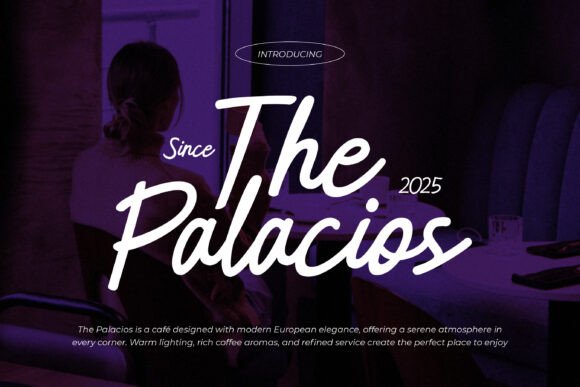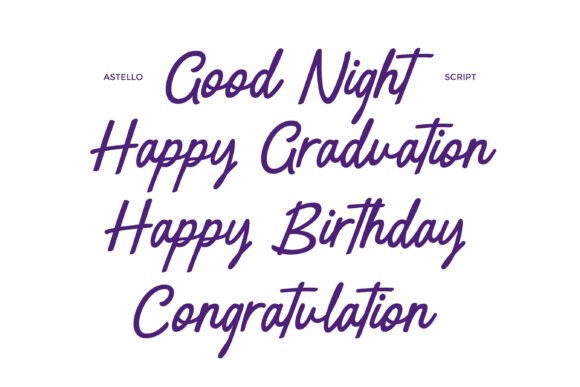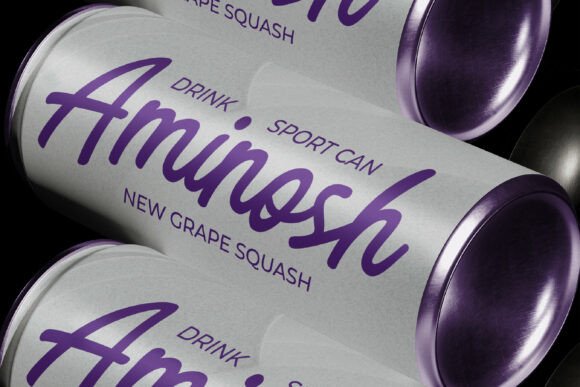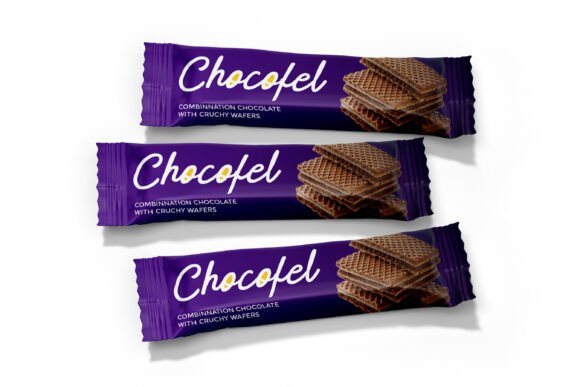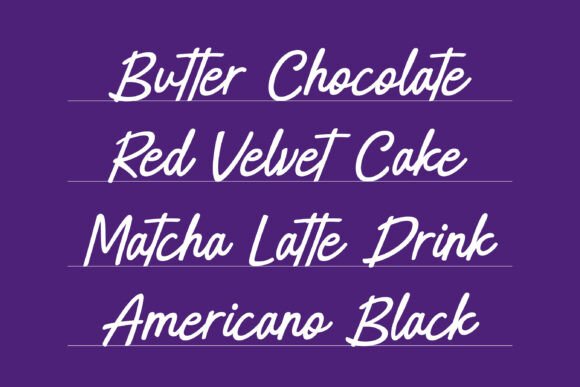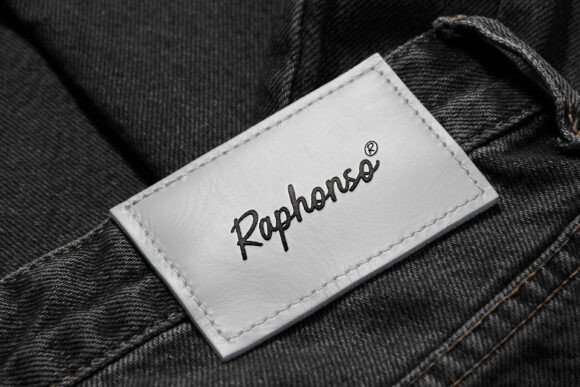
Introducing Astello Font: The Perfect Blend of Personality and Professionalism
In the world of typography, a font can make or break a design. It can convey the tone, personality, and style of a brand or project. For designers and crafters looking for a font that exudes a sense of friendliness, modernity, and professionalism, Astello Font is an excellent choice. In this article, we’ll dive into the features and benefits of Astello, a natural handwritten font with a clean monoline script style.
Astello’s Unique Characteristics
Astello is a carefully crafted font that boasts a clean monoline script style, making it perfect for a wide range of design applications. Its unique characteristics include:
- Natural Handwritten Feel: Astello’s handwritten style gives it a personal touch, making it ideal for designs that require a human and approachable feel.
- Clean Monoline Script: The font’s clean and smooth lines ensure that it remains legible and easy to read, even at smaller font sizes.
- Flowing Strokes: Astello’s flowing strokes and balanced letterforms create a sense of harmony and fluidity, making it a joy to read and look at.
- Handcrafted Character: Despite its clean and modern style, Astello still retains a handcrafted character that sets it apart from more generic fonts.
The Benefits of Using Astello Font
So, why should designers and crafters choose Astello Font for their projects? Here are just a few benefits:
- Versatility: Astello’s clean and modern style makes it suitable for a wide range of design applications, from branding and advertising to packaging and digital media.
- Readability: The font’s flowing strokes and balanced letterforms ensure that it remains easy to read, even at smaller font sizes.
- Personality: Astello’s handwritten style gives it a unique personality that can help brands and projects stand out from the crowd.
- Professionalism: Despite its friendly and approachable feel, Astello still conveys a sense of professionalism and sophistication.
Design Applications for Astello Font
Astello Font is an incredibly versatile font that can be used in a wide range of design applications, including:
- Branding and Identity: Use Astello to create a unique and memorable brand identity that stands out from the crowd.
- Advertising and Marketing: The font’s clean and modern style makes it perfect for advertising and marketing materials, such as brochures, flyers, and social media graphics.
- Packaging Design: Astello’s friendly and approachable feel makes it an excellent choice for packaging design, particularly for brands that want to convey a sense of warmth and personality.
- Digital Media: The font’s legibility and readability make it suitable for digital media, such as e-books, blogs, and websites.
Tips for Using Astello Font Effectively
To get the most out of Astello Font, here are a few tips:
- Use it as a Headline Font: Astello’s unique personality and style make it perfect for use as a headline font.
- Pair it with Other Fonts: Experiment with pairing Astello with other fonts to create a unique and visually appealing typography scheme.
- Adjust the Font Size: Don’t be afraid to experiment with different font sizes to find the perfect balance between readability and style.
In conclusion, Astello Font is an excellent choice for designers and crafters looking for a font that exudes a sense of friendliness, modernity, and professionalism. Its unique characteristics, versatility, and readability make it suitable for a wide range of design applications. By following the tips outlined in this article, you can use Astello Font to take your designs to the next level and create something truly special.